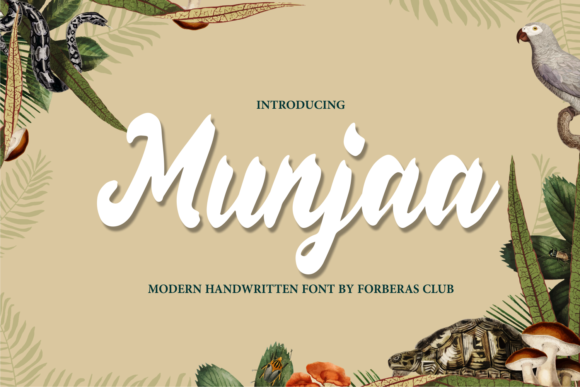
Behold, Munjaa, a font of uniqueness that will captivate your every design! Crafted by the visionary Forberas Club, this font is more than just letters on a screen; it's an experience that sparks creativity and ignites imagination. Munjaa, the bold and beautiful handwritten script, beckons you to break free from the ordinary and embrace the allure of the extraordinary.
Whether you're gracing the cover of a book, crafting compelling product packaging, or embarking on a branding journey, Munjaa is your perfect companion. Its distinctiveness shines through, leaving an indelible mark that resonates with your audience. Unleash its potential in magazines, social media, and countless other endeavors, and watch as your projects transform into masterpieces that demand attention.
Munjaa is more than a font; it's an expression of your individuality. It's an invitation to step into a world of boundless creativity, where imagination reigns supreme. Let Munjaa guide you through the realms of expression, enhancing your designs with a touch of elegance, a dash of sophistication, and a whole lot of charm.
In the season of joy, Munjaa adds a touch of warmth and cheer to your Christmas greetings. Its playful curves and dynamic strokes capture the essence of the festive spirit, making it the perfect choice for Christmas cards, invitations, and social media posts. Embrace the magic of the season with Munjaa as your creative ally.
Munjaa is not just a font; it's a statement, a reflection of your taste, your style, and your pursuit of excellence. It's a font that transforms the ordinary into the extraordinary, the mundane into the magical. With Munjaa at your fingertips, you hold the power to create designs that captivate, designs that inspire, designs that leave an everlasting impression. Embrace the artistry of Munjaa and let your creativity soar to new heights!